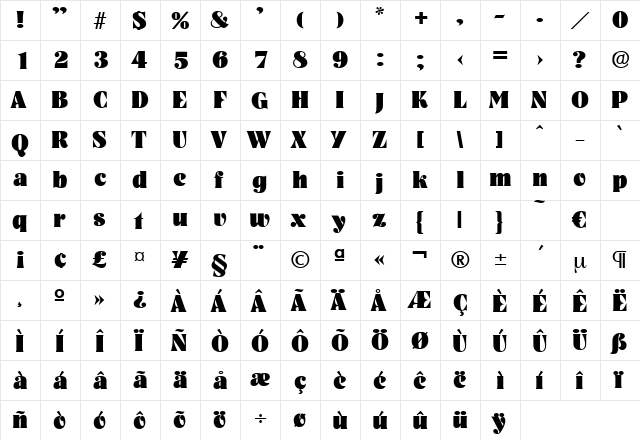
Nashville-Heavy Regular
Design Context for Nashville-Heavy Typeface
Nashville-Heavy offers clean, dependable letterforms without strong stylistic allegiance, making it a practical choice for designers who need flexibility.